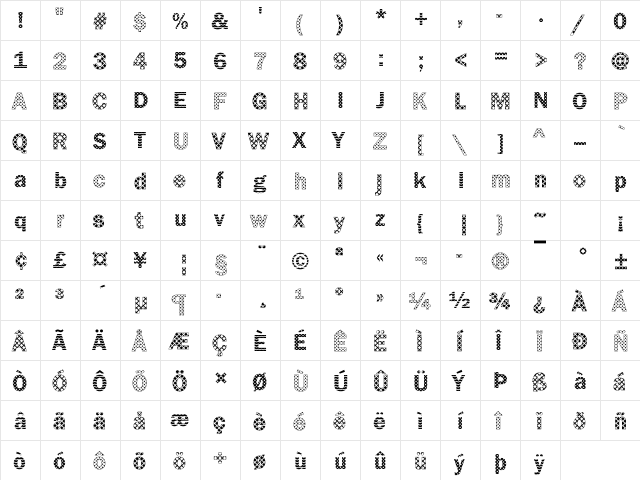
DTCFranklinGotM11 Regular
Design Context for DTCFranklinGotM11 Typeface
DTCFranklinGotM11 offers clean, dependable letterforms without strong stylistic allegiance, making it a practical choice for designers who need flexibility.